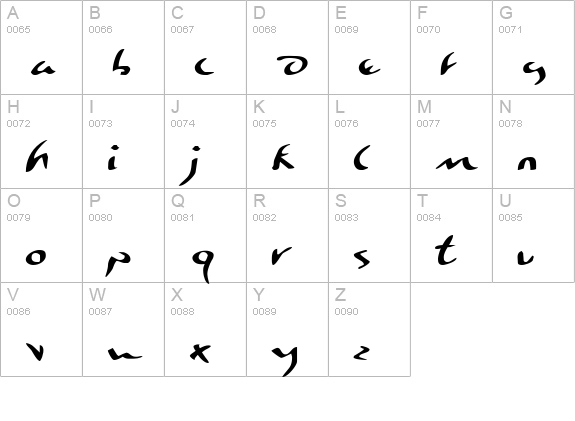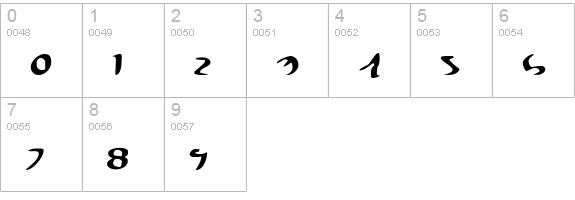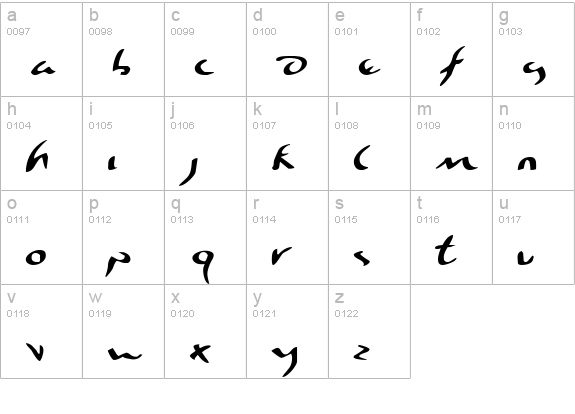
Eagleclaw Expanded is a distinctive, extended-width variant in the Eagleclaw typeface family \xE2\x80\x94 well suited to design and typography projects.
Eagleclaw Expanded font exudes a sense of strength and elegance with its bold yet refined design. The sharp edges and intricate details of each letter give this typeface a unique and powerful presence that commands attention. Perfect for headlines, logos, and branding projects, Eagleclaw Expanded adds a touch of sophistication to any design. What's even better is that Eagleclaw Expanded is available for free download at FontsMarket.com. Now you can elevate your projects with this striking font without breaking the bank. Don't miss out on the opportunity to add Eagleclaw Expanded to your font collection today!